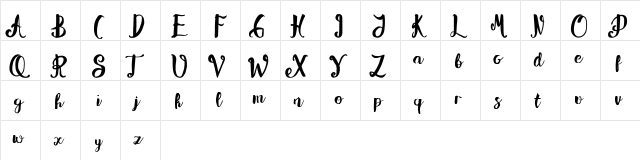
Alissya Regular
| Foundry | MaulanaCreative |
| Designer | MaulanaCreative |
Design Context for Alissya Typeface
Alissya is a composed and adaptable typeface that performs quietly and consistently across a wide range of design contexts.